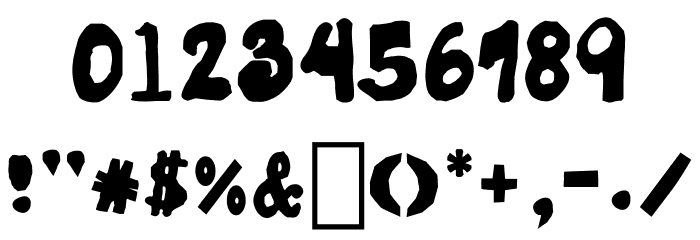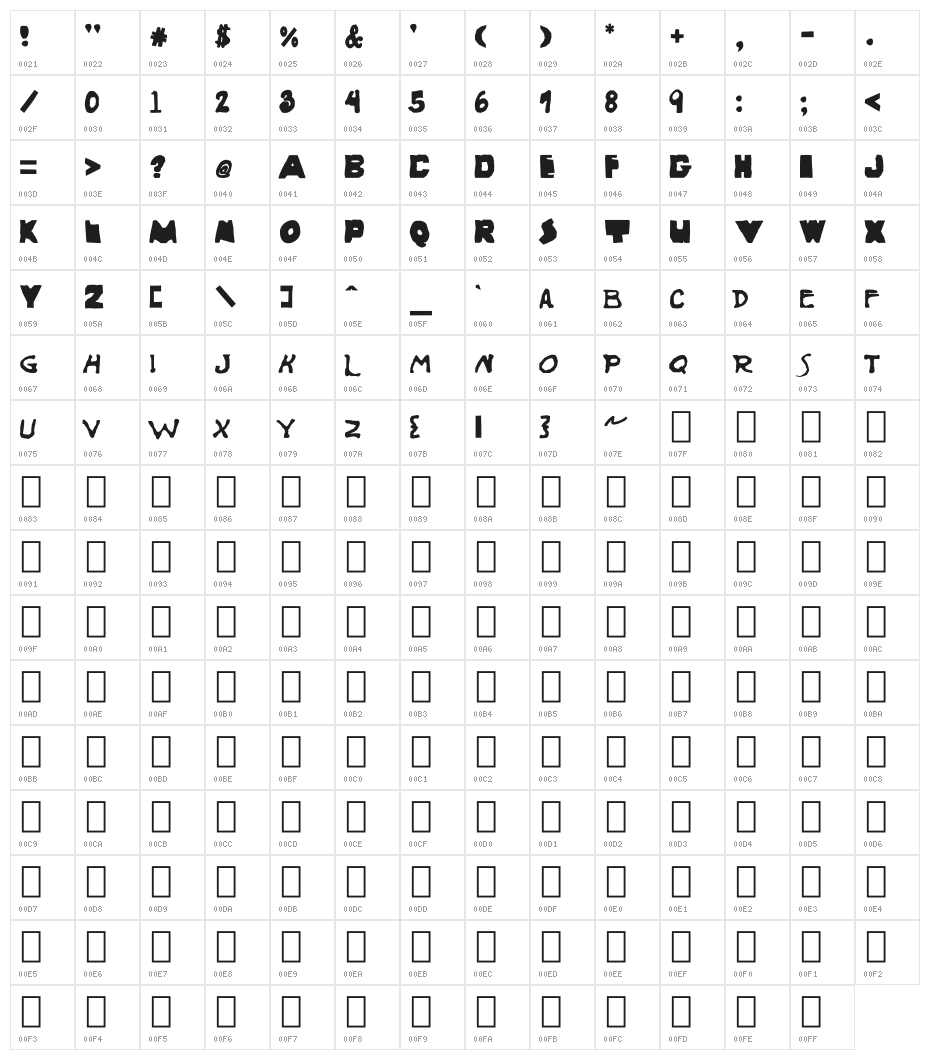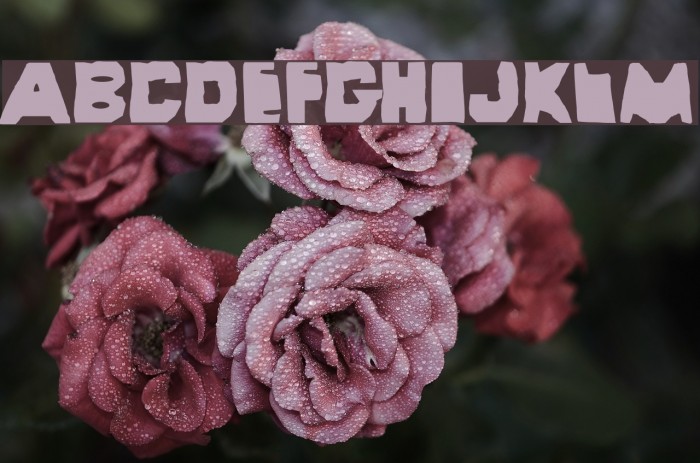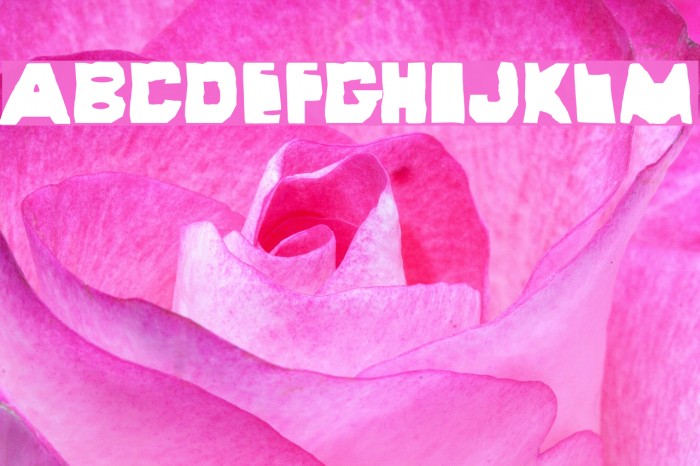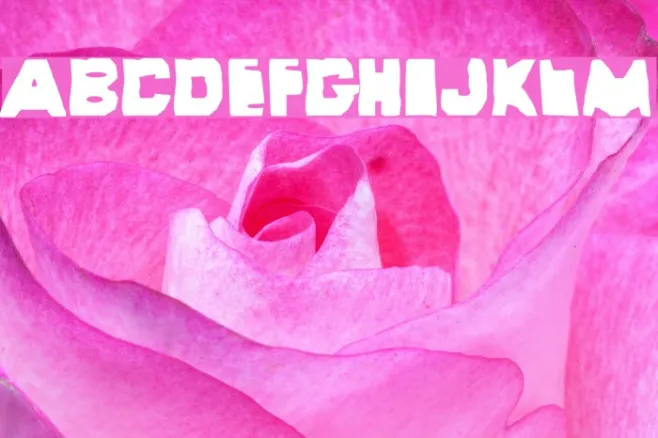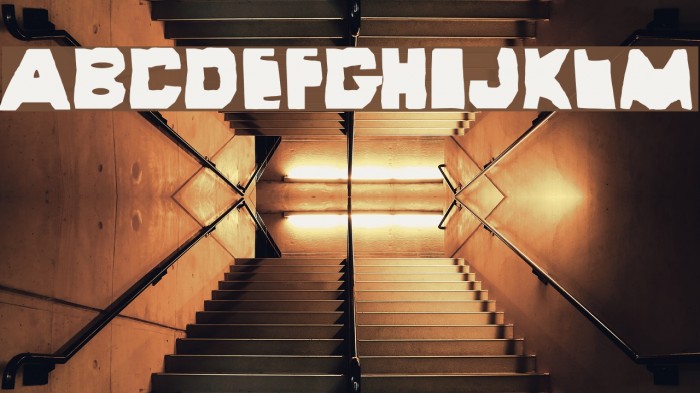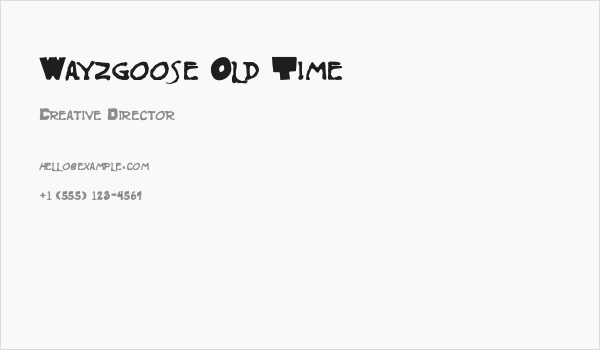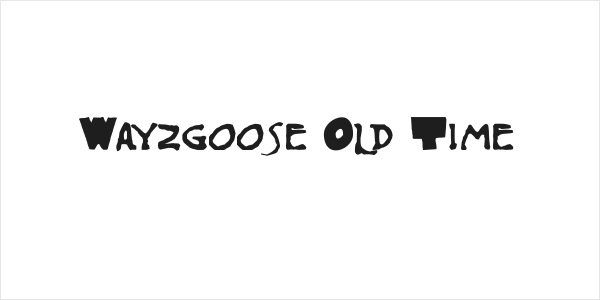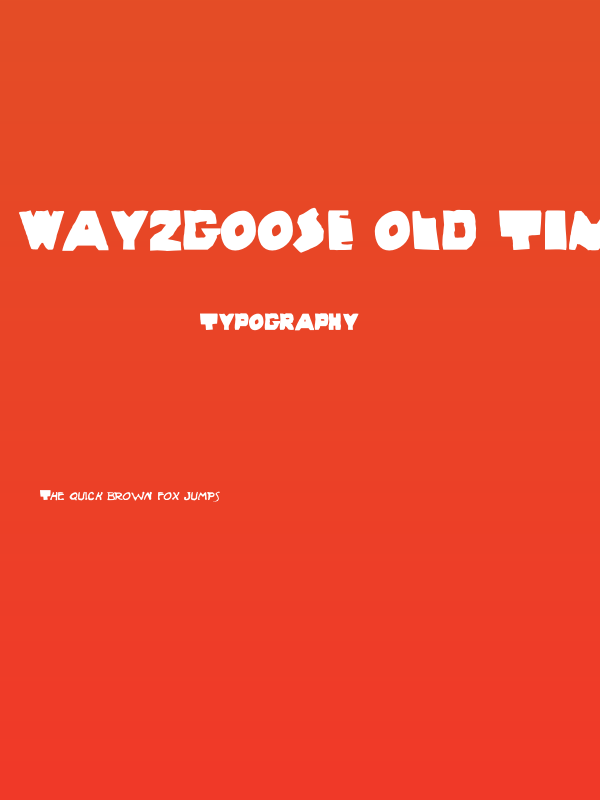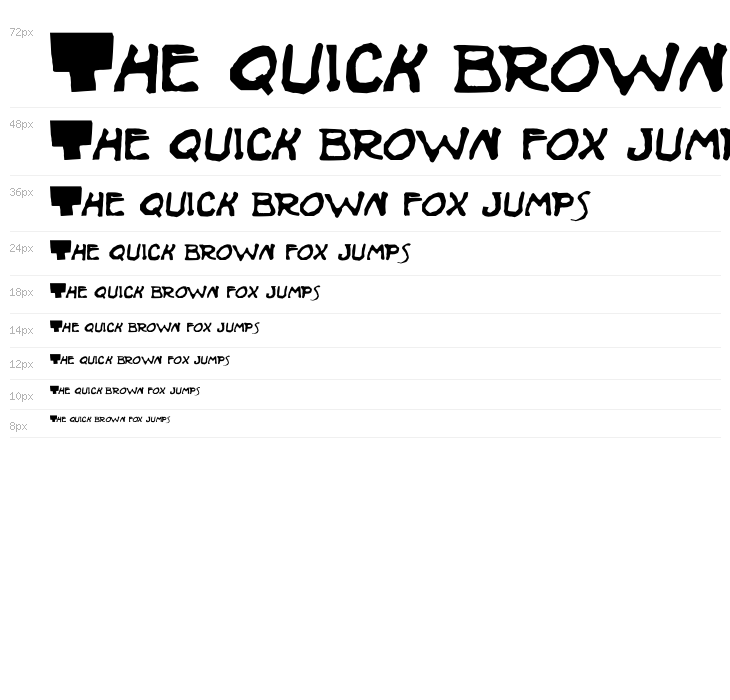
Wayzgoose Old Time Font
Wayzgoose Old Time Description
This font features a bold and rugged style with a hand-crafted appearance. The uppercase letters are blocky and uneven, giving a sense of vintage charm and character. The lowercase letters maintain a similar aesthetic, with irregular edges and a slightly distressed look. The numbers are bold and consistent with the overall style, while the special characters add a playful touch. This font's unique, rough-hewn design makes it stand out, evoking a sense of nostalgia and artisanal craftsmanship. It's perfect for projects that require a distinctive, old-time feel.